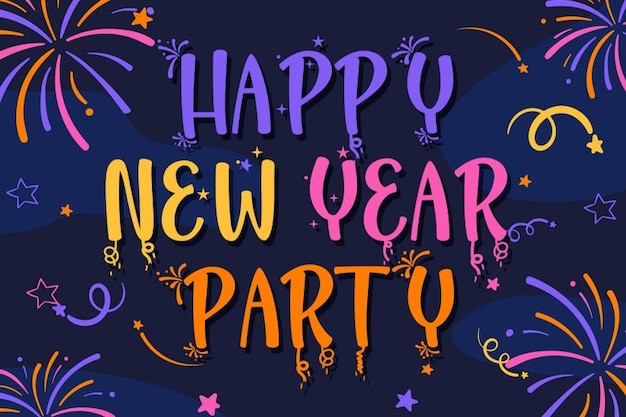
Happy New Year Party
Happy New Year Party Font
Putracetol
Happy New Year Party is a vibrant, celebratory font designed to capture the excitement of ringing in the New Year. With festive letterforms and a playful touch, it evokes images of fireworks, parties, and joyful celebrations. Perfect for New Year’s invitations, party decor, or holiday promotions, this font brings a fun, lively energy to every design.